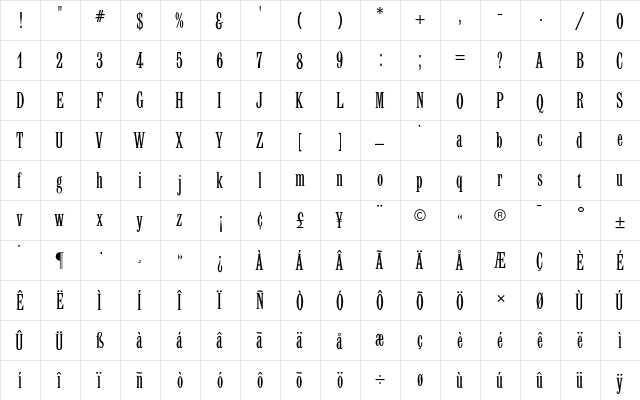
Latin CG Elongated Regular
| Foundry | Agfa Corporation |
Design Context for Latin CG Elongated Typeface
Latin CG Elongated offers clean, dependable letterforms without strong stylistic allegiance, making it a practical choice for designers who need flexibility.